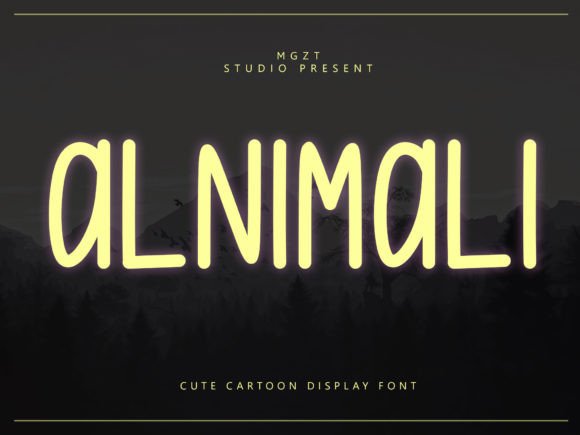
The Whimsical World of Alnimali Font: A Designer’s Delight
I still remember the time I was working on a children’s book project, and my client asked me to create a playful and engaging design that would appeal to kids. The catch? I had to find a font that would bring the story to life. After hours of searching, I stumbled upon Alnimali Font, and it was love at first sight! ✨ In this article, I’ll share my experience with Alnimali, its features, and how to make the most of this charming font.
A First Impression: What Makes Alnimali Special
Alnimali Font is a charming and whimsical font that perfectly captures the playful essence of cartoon artistry. Characterized by its tall and thin letters, Alnimali brings a sense of lightness and fun to any design. Each character is thoughtfully crafted to maintain a cute and endearing appearance, making it an ideal choice for children’s books, playful branding, comics, and any project that aims to evoke joy and creativity.
What I Love About Alnimali Font
- ✨ Unique and playful design that stands out in any project
- ✅ Easy to read, even at smaller font sizes
- 🎉 Perfect for children’s books, comics, and playful branding
- 💻 Works well with both digital and print designs
While Alnimali Font is a gem, it’s not without its quirks. ⚠️ Some users might find that the font can be a bit too playful for more serious designs. Additionally, the font’s tall and thin letters might not be suitable for designs that require a lot of body text.
Alnimali Font was created with the intention of bringing a sense of playfulness and joy to design. The designer, inspired by the whimsical world of cartoons and children’s books, crafted each character to be both cute and endearing. The result is a font that perfectly captures the essence of childhood wonder and creativity.
Q: What type of designs is Alnimali Font best suited for?
A: Alnimali Font is perfect for children’s books, playful branding, comics, and any project that aims to evoke joy and creativity.